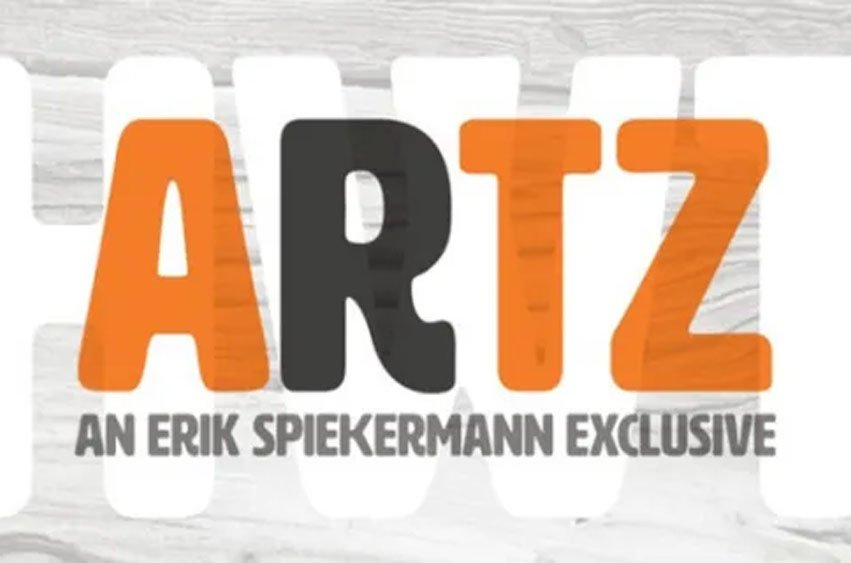
HWT Artz Font is the newest wood type to be cut at Hamilton Wood Type and Printing Museum. It was designed by venerable type designer Erik Spiekermann exclusively for his own print studio (P98a in Berlin), specifically to be cut into large size wood type. The digital version is being offered to the general public with proceeds of sales to benefit the museum’s ongoing operations.
HWT Artz evokes bold early 20th century European poster lettering. The design itself is intended to minimize hand-finishing and thus production time with rounded corners rather than sharp interior corners that would normally have to be hand-finished. In keeping with the tradition of naming new Hamilton designs after key figures from the living history of Hamilton (and following Spiekermann’s tradition of four letter font names), Artz is named after Dave Artz- Hamilton Manufacturing retiree and master type trimmer.